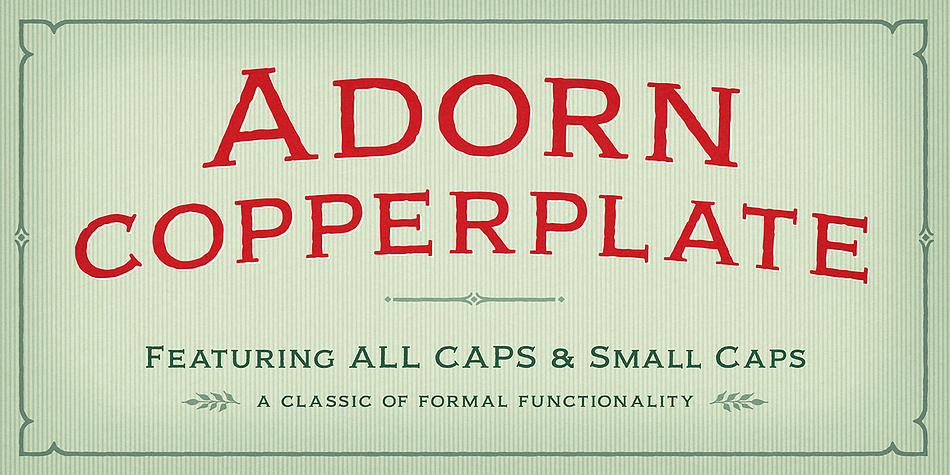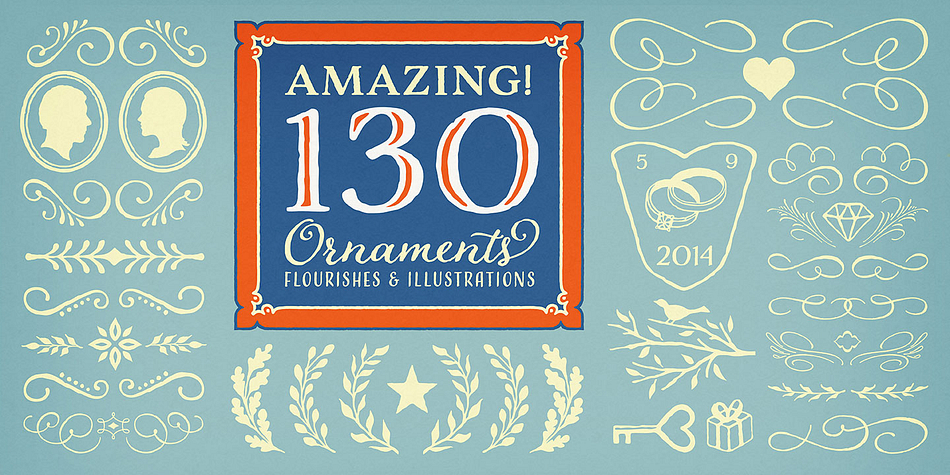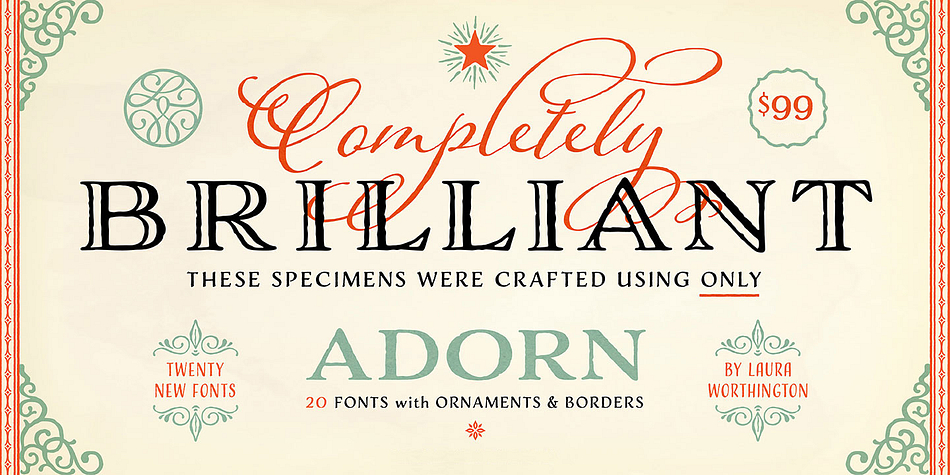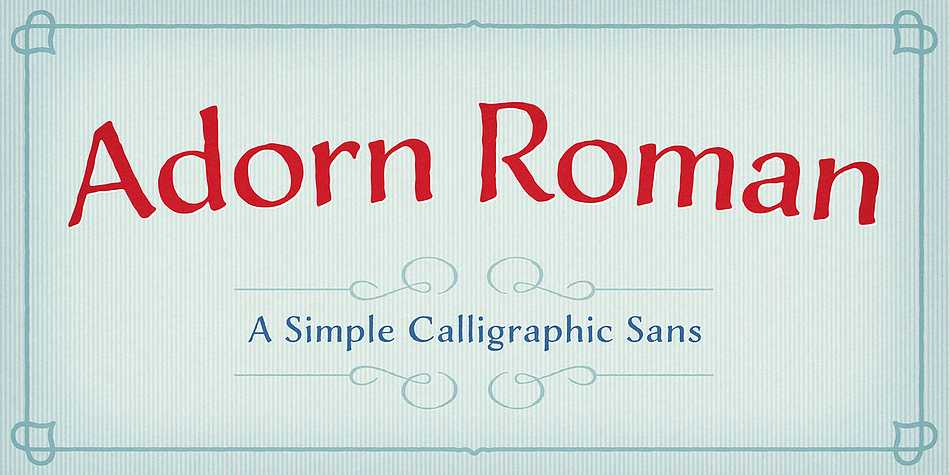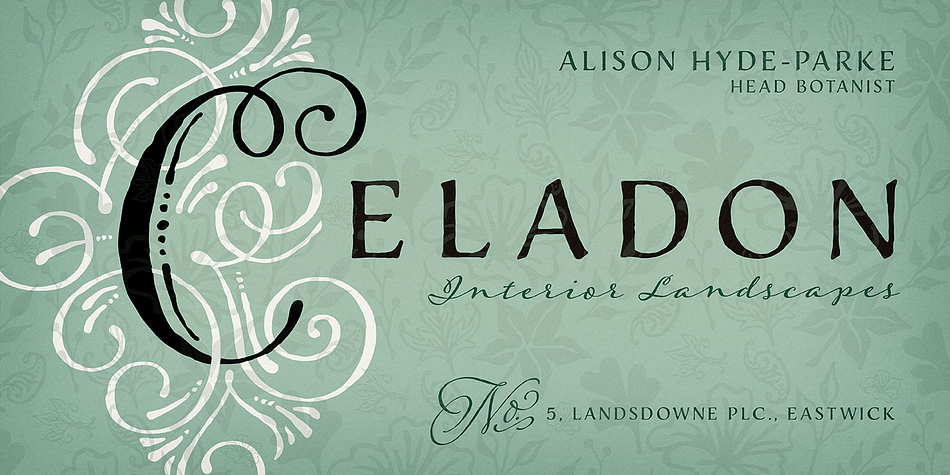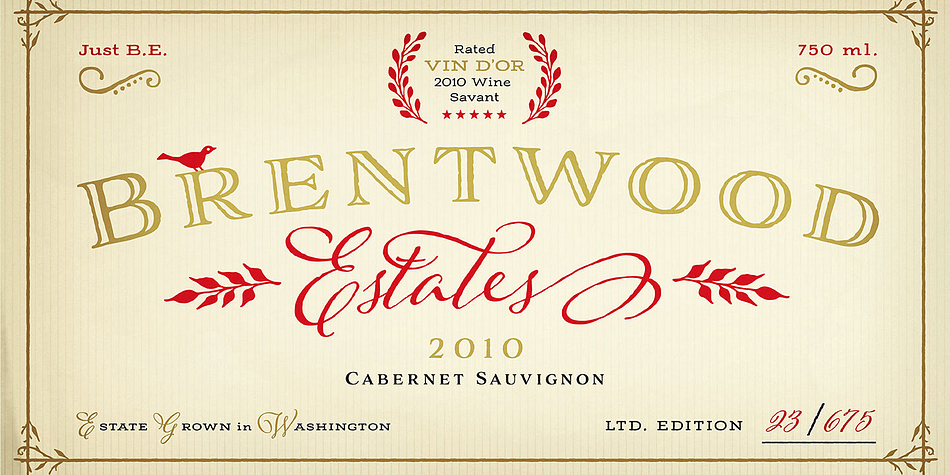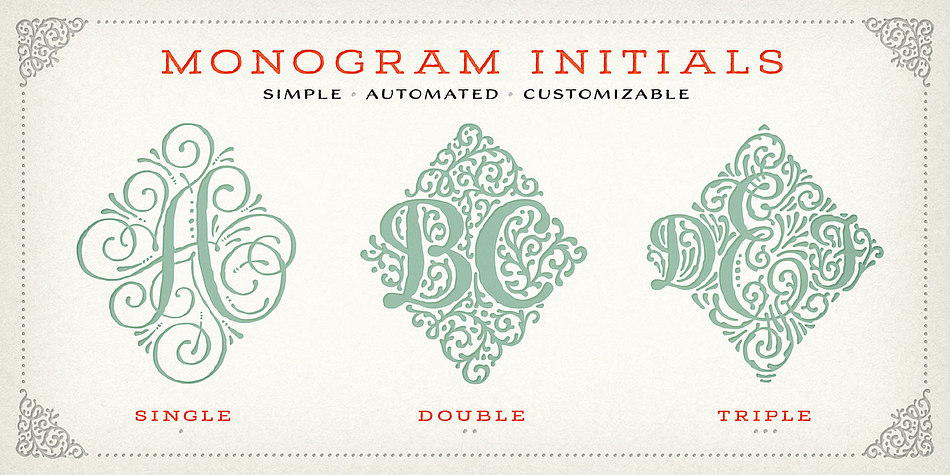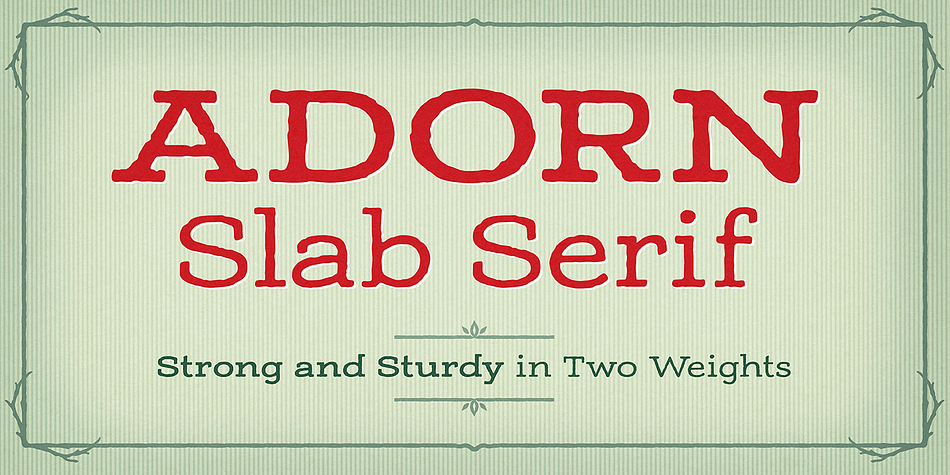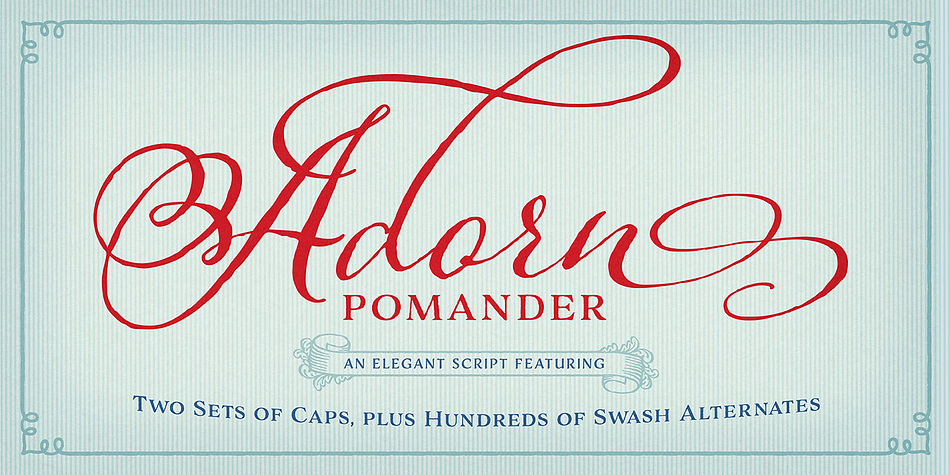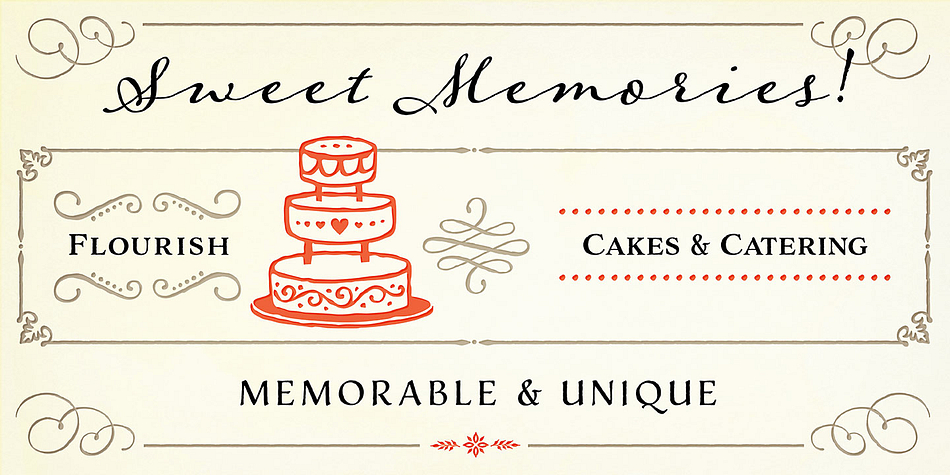
Adorn Collection is a multiple classification font family. This typeface has twenty styles and was published by Laura Worthington.
What can be more lovely than a wedding, an intimate invitation, a gift from the heart? One whose presentation uses the warm and welcoming family of typefaces, Adorn. With a modern and sometimes quirky twist on the staid, almost corporate look of formal invitations, this family of lettering typefaces arms designers with a breathtakingly large number of faces that work harmoniously, despite the distinctiveness of each. Even larger and more multilayered than Worthington’s award-winning Charcuterie collection, Adorn offers seven display fonts, four script designs, monograms, ornaments, illustrations, banners, frames, and catchwords.
Anyone in the business of helping others celebrate life—florists, menu designers, landscapers, caterers, tailors, event planners—will find fitting fonts in the Adorn collection. DIYers and designers will enjoy Adorn, too, for use in prints and drawings, quotes, invitations for gatherings, greeting cards, baby showers, gift cards, even wine bottles.
While each font in the carefully orchestrated Adorn collection can stand alone, the particular combination of contrasting scripts, display fonts, romans, and the multitude of stylized fonts in Adorn’s extraordinary toolkit makes each designer’s creation one of a kind.